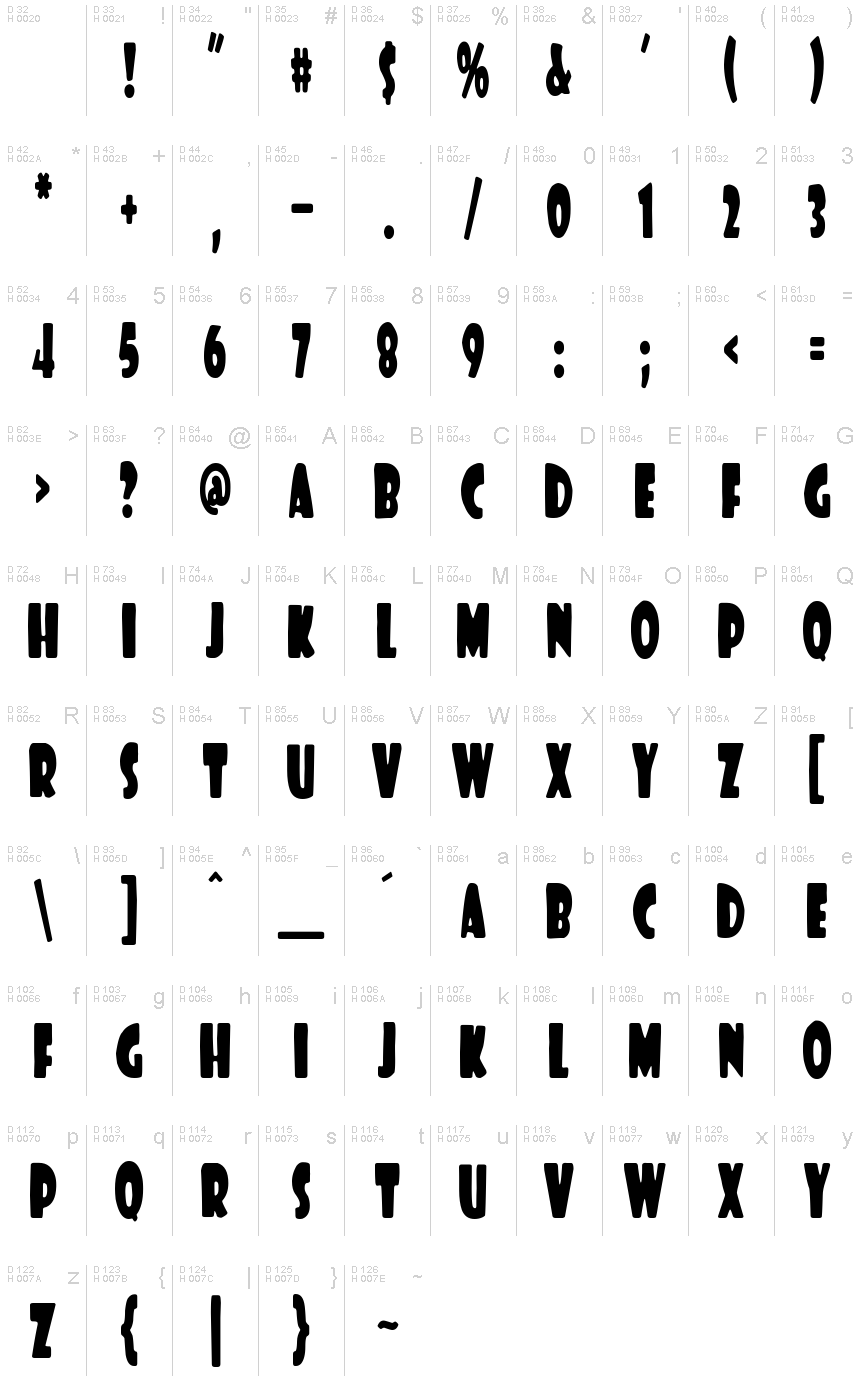
Final Match
Final Match font, designed by Woodcutter, embodies a striking blend of boldness and groovy charm. Its unique character shines through with an energetic presence that captures attention effortlessly. The condensed nature of the letters enhances its modern aesthetic, making it perfect for impactful headlines and captivating branding.
Visually compelling, Final Match boasts playful curves and distinctive shapes that evoke a sense of fun and creativity. This versatility makes it an ideal choice for various design contexts, from vibrant event posters to trendy merchandise and eye-catching social media graphics. Elevate your projects with this expressive typeface that infuses personality and excitement into any visual communication.